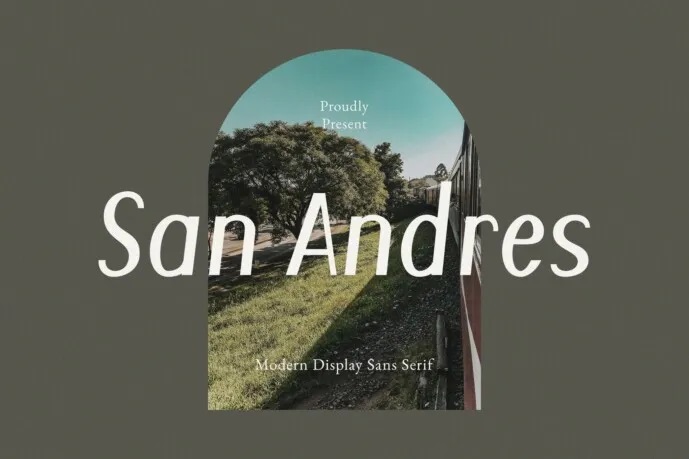
San Andres Font
San Andres is a sans serif typeface display fonts style that can be used in various area and niches. Its elegant yet unapologetically thick contours come in handy for headlines, logos as well as any graphic elements. San Andres will certainly be conversation-pieces, regardless of whether that design is minimalist or maximalist.
San Andres Sans Serif Font